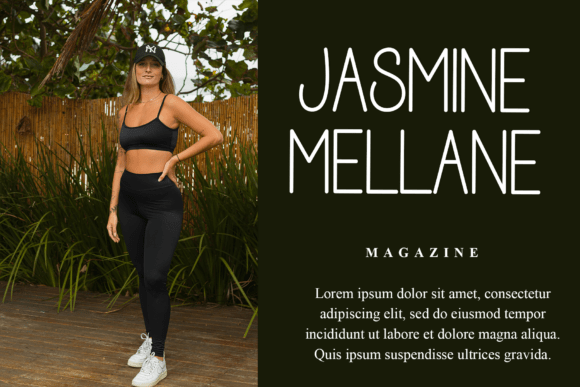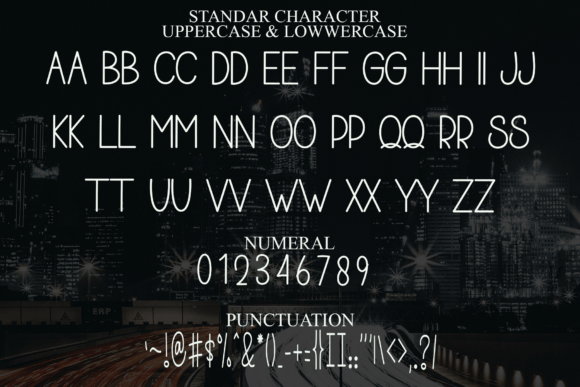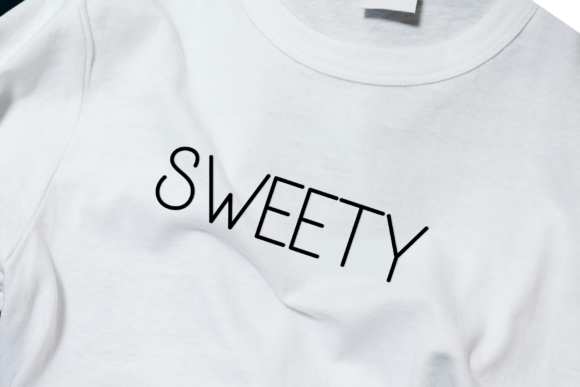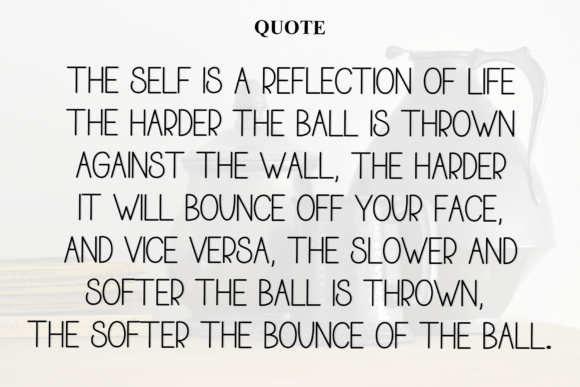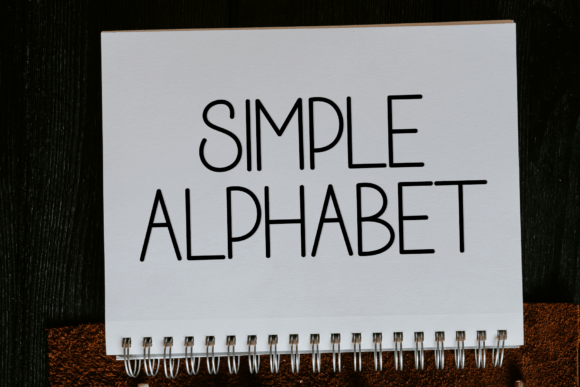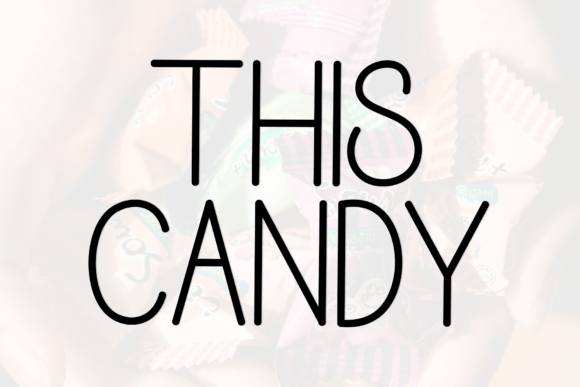
Introducing Boho Candy Font: The Sweetest Addition to Your Design Collection
Are you a designer, crafter, or DIY enthusiast looking for a font that adds a touch of whimsy and charm to your projects? Look no further than Boho Candy Font, a sweet and friendly handwritten font that’s perfect for a wide range of designs. With its natural and unique style, Boho Candy is sure to become your go-to font for all your creative endeavors.
What is Boho Candy Font?
Boho Candy Font is a beautiful, handwritten font that’s designed to add a personal touch to your designs. Its bohemian-inspired style is perfect for creating unique and eye-catching projects that stand out from the crowd. Whether you’re working on a branding project, a craft tutorial, or a social media graphic, Boho Candy Font is the perfect choice.
Key Features of Boho Candy Font
• Handwritten style: Boho Candy Font has a natural, handwritten look that’s perfect for creating personal and engaging designs.
• Unique and quirky: This font has a one-of-a-kind style that’s sure to add a touch of whimsy to your projects.
• Versatile: Boho Candy Font can be used for a wide range of designs, from branding and advertising to crafting and DIY projects.
• Easy to read: Despite its playful style, Boho Candy Font is easy to read and understand, making it perfect for use in body text.
Uses for Boho Candy Font
So, what can you use Boho Candy Font for? The possibilities are endless! Here are a few ideas to get you started:
• Branding and advertising: Use Boho Candy Font to create unique and eye-catching logos, business cards, and marketing materials.
• Crafting and DIY projects: Add a personal touch to your crafting and DIY projects, such as handmade cards, gift tags, and signs.
• Social media graphics: Use Boho Candy Font to create engaging and shareable social media graphics, such as quote graphics and promotional images.
• Party decorations: Create custom party decorations, such as banners, garlands, and invitations, using Boho Candy Font.
Tips for Using Boho Candy Font
Here are a few tips for getting the most out of Boho Candy Font:
• Experiment with colors: Boho Candy Font looks great in a variety of colors, so don’t be afraid to experiment and find the perfect hue for your design.
• Mix and match: Combine Boho Candy Font with other fonts and graphics to create unique and eye-catching designs.
• Keep it simple: Don’t overcomplicate your design – sometimes, the simplest designs are the most effective.
Boho Candy Font is a sweet and friendly handwritten font that’s perfect for designers, crafters, and DIY enthusiasts. With its natural and unique style, Boho Candy is sure to add a touch of whimsy and charm to your projects. Whether you’re working on a branding project, a craft tutorial, or a social media graphic, Boho Candy Font is the perfect choice. So why wait? Download Boho Candy Font today and start creating your own unique and eye-catching designs!